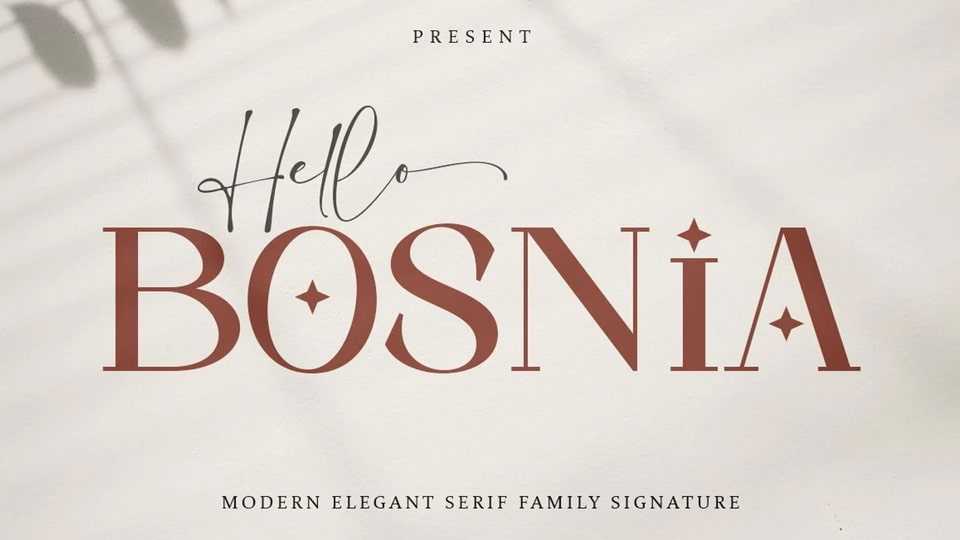
Download Hello Bosnia font, a modern vintage serif and script that is packaged in an elegant and classy style. The choice of fonts you like from large and small font variations to luxurious and elegant looks.